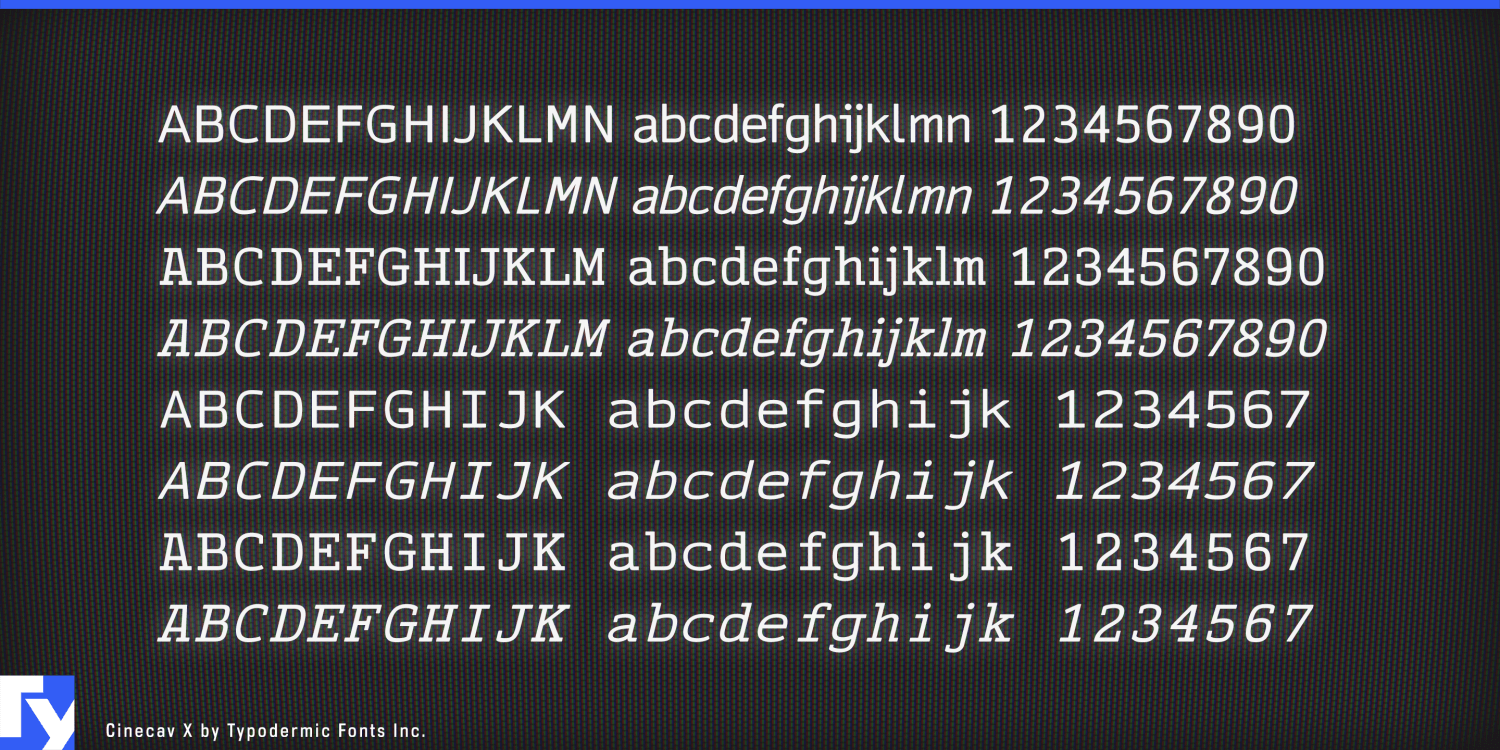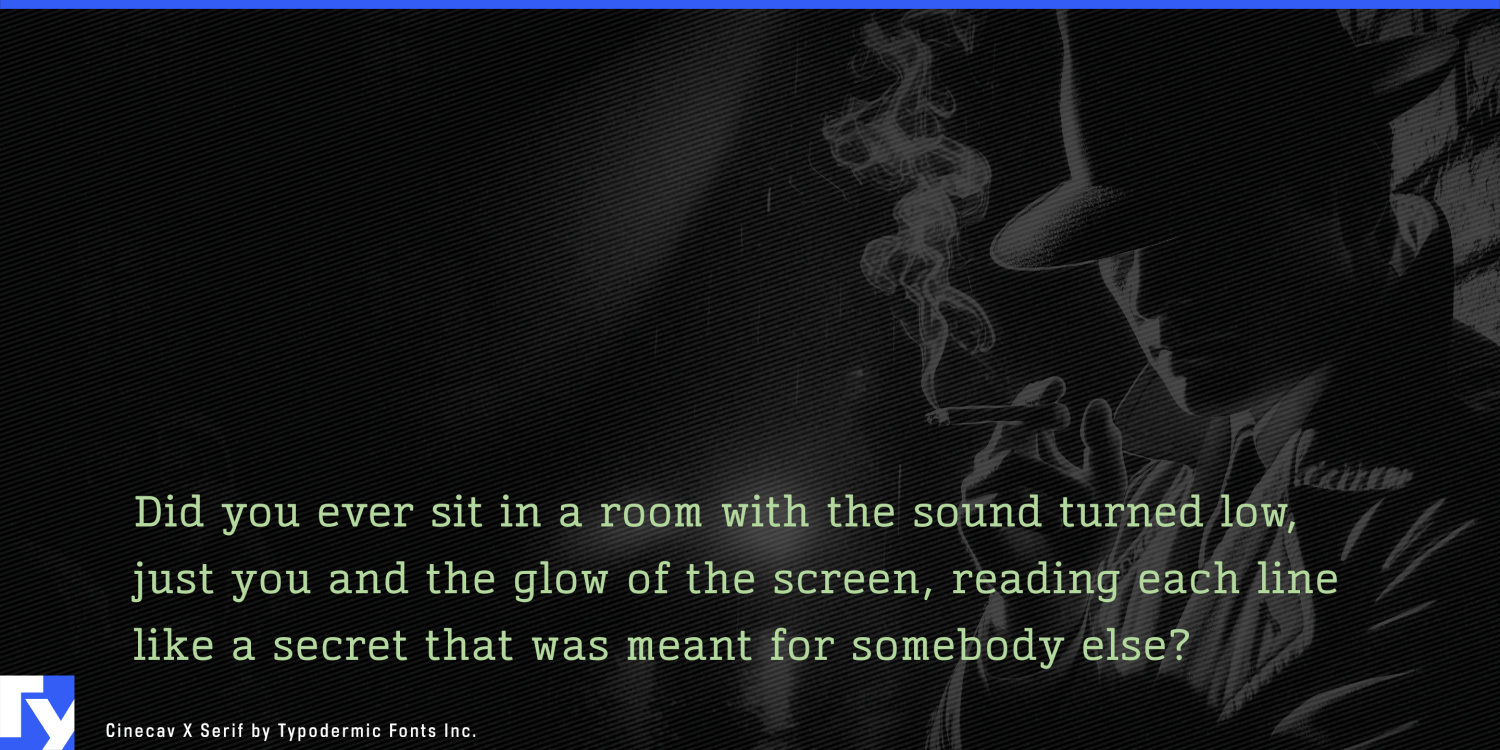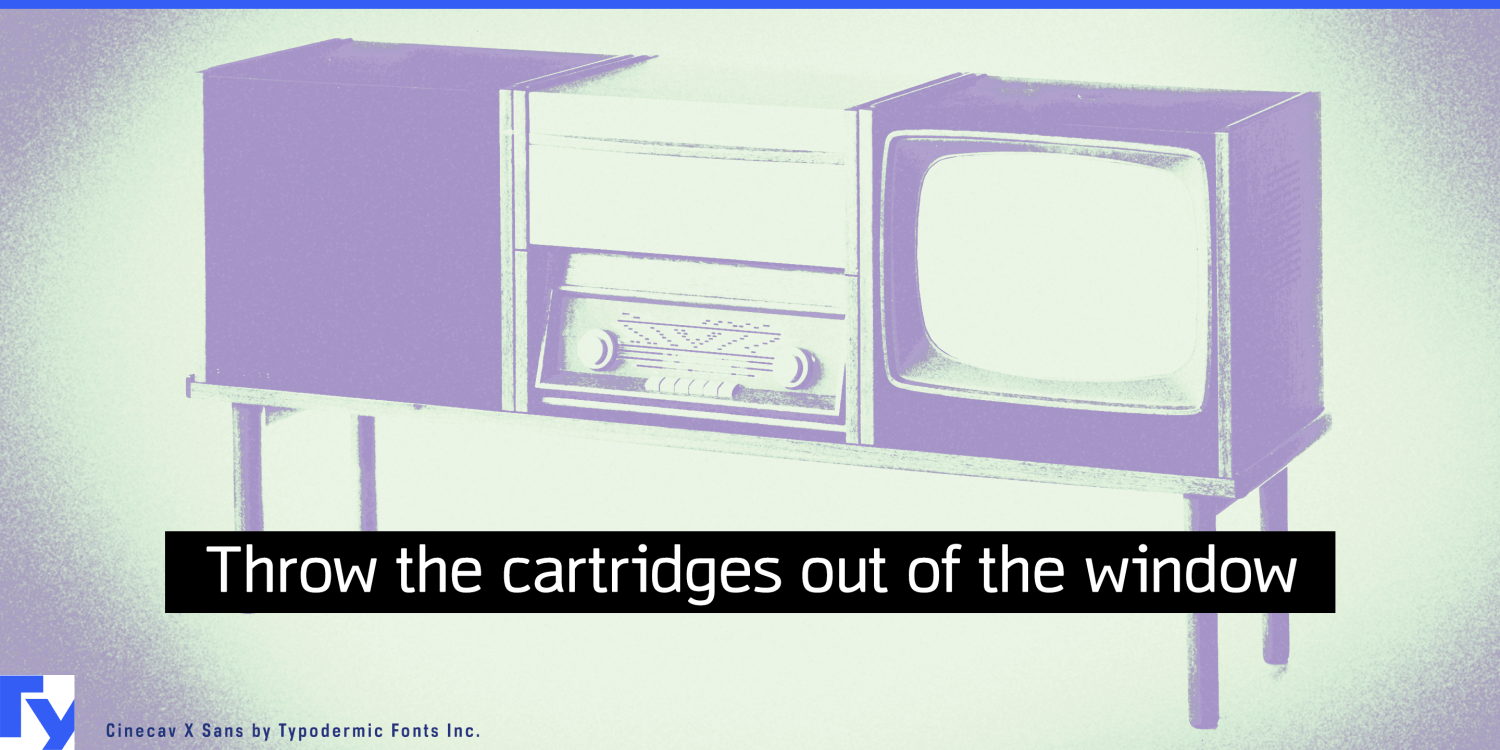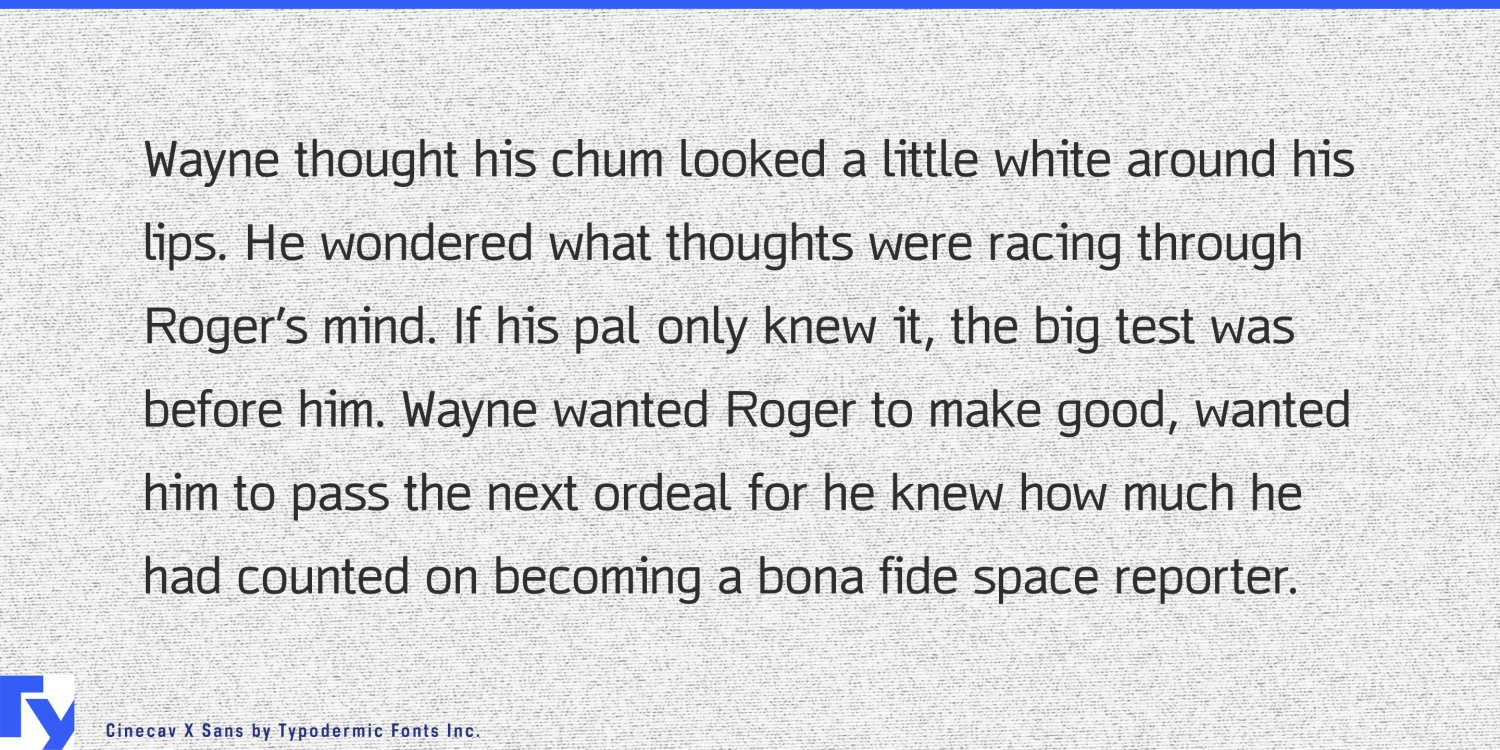
Introducing Cinecav X, a groundbreaking typeface family that brings the clarity and legibility of closed-caption television to a broader design landscape. Born from the renowned Cinecav™ system, Cinecav X evolves beyond its roots to offer designers…